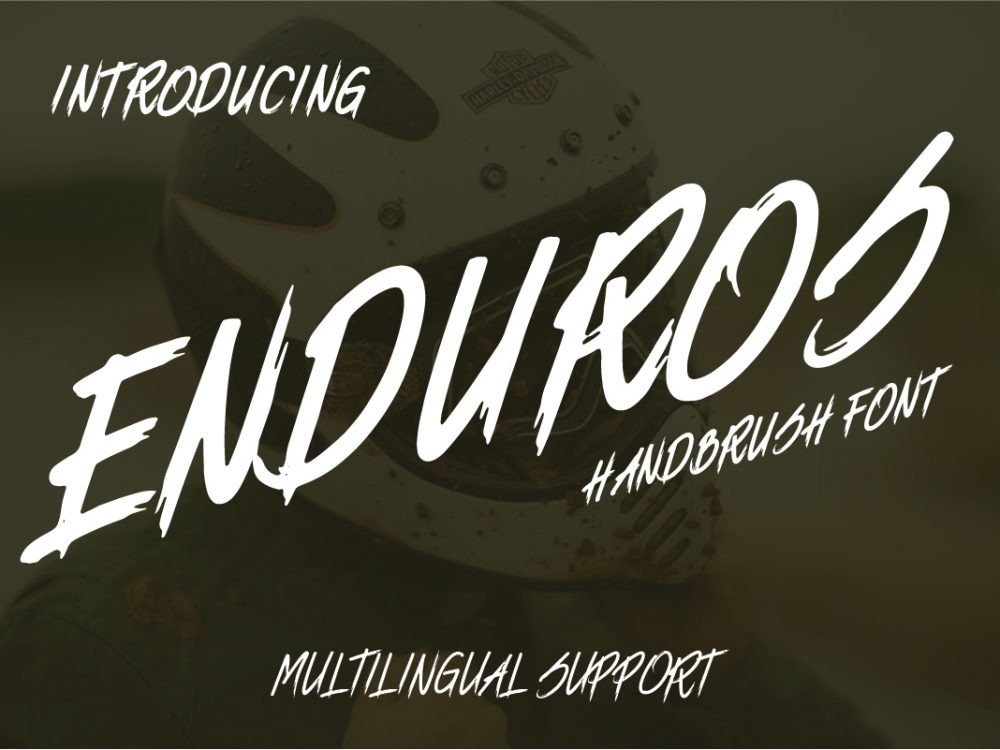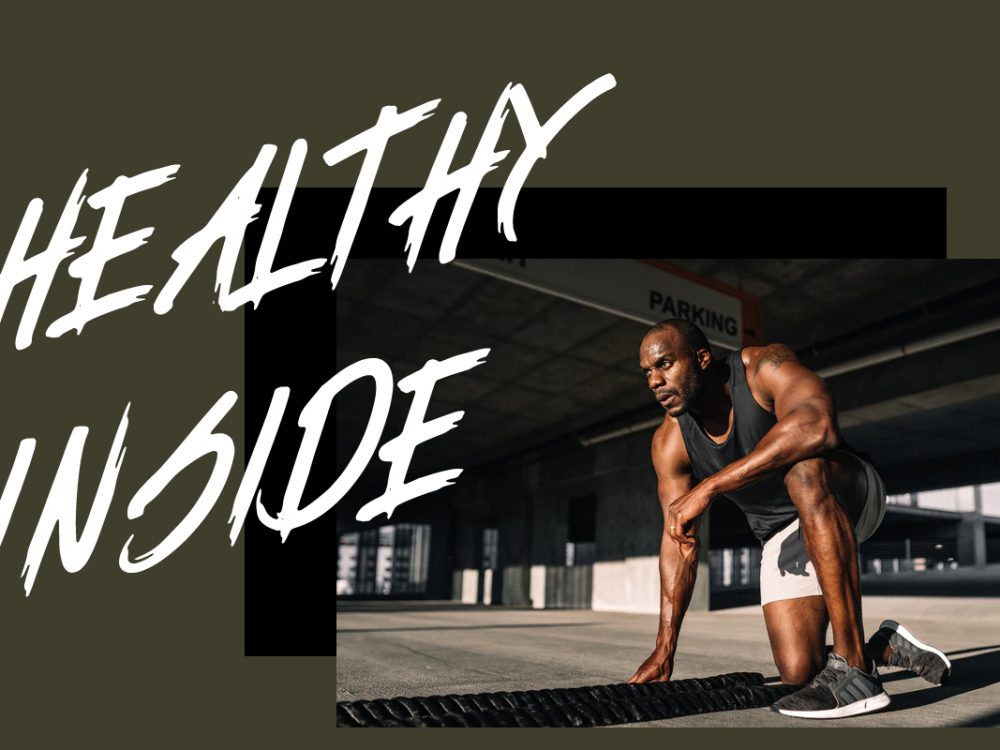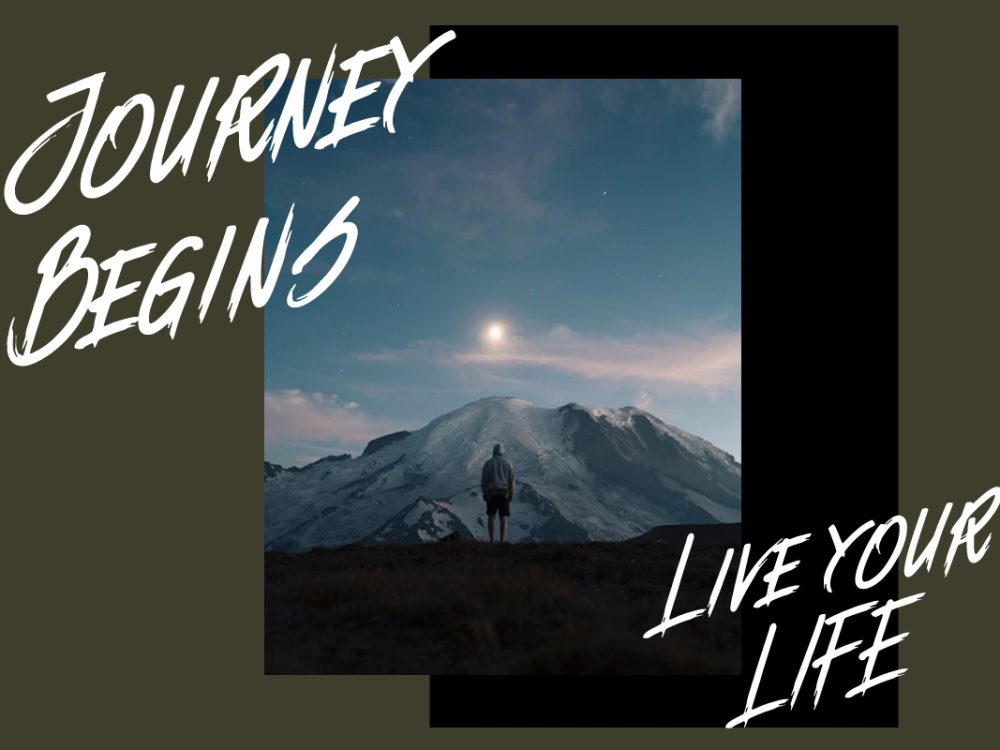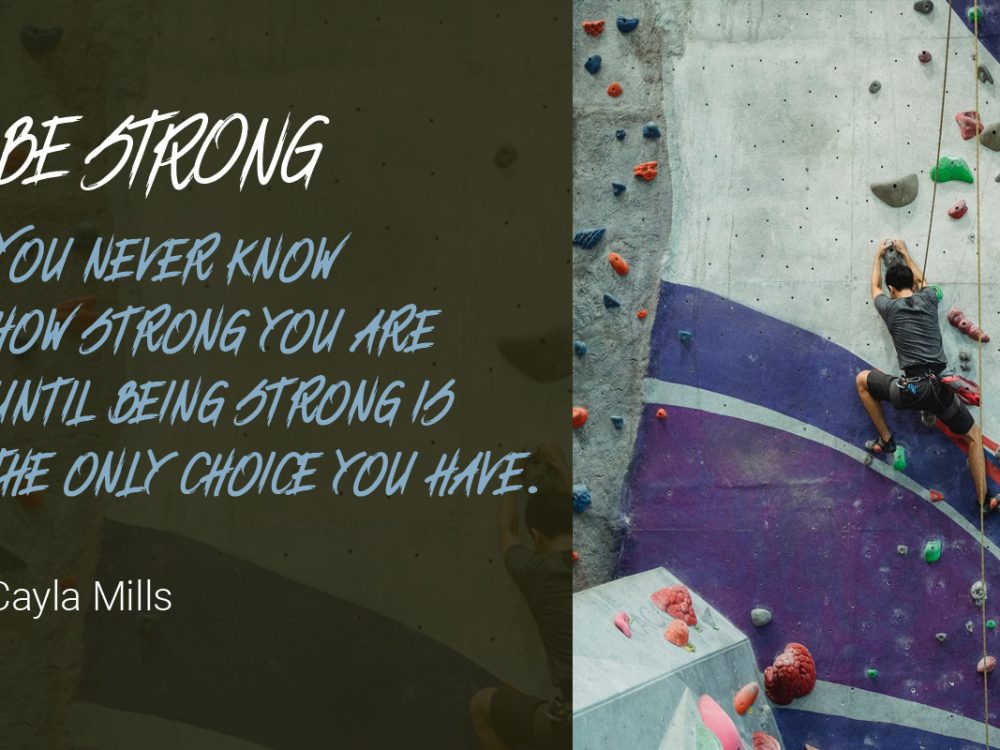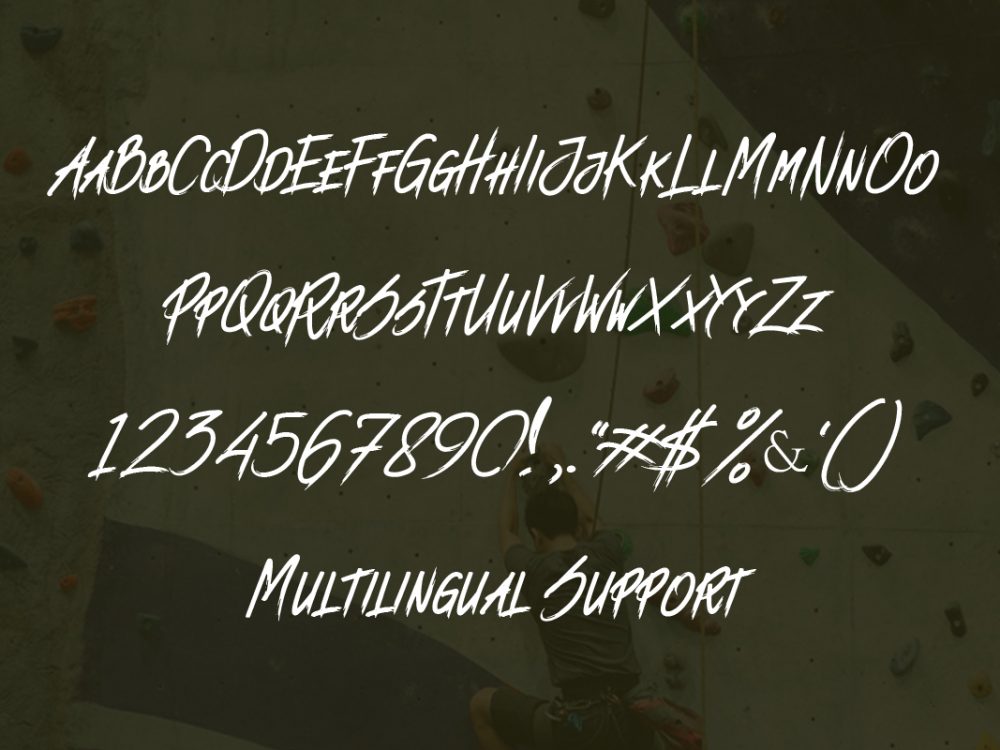
Enduros Free Font
Enduros Free Font is an interesting handwritten typeface that mimics brush writing and stands out for its modern calligraphic style among other fonts. This font is very suitable for creating various projects that require a scripted handwritten font. Use this font to create memorable branding projects, logos, wedding designs, social media posts, advertisements, product packaging, product designs, label, photography, watermark, invitation, stationery, and more. Improve your professional level using this font. If you like it don’t forget to check out the full version.